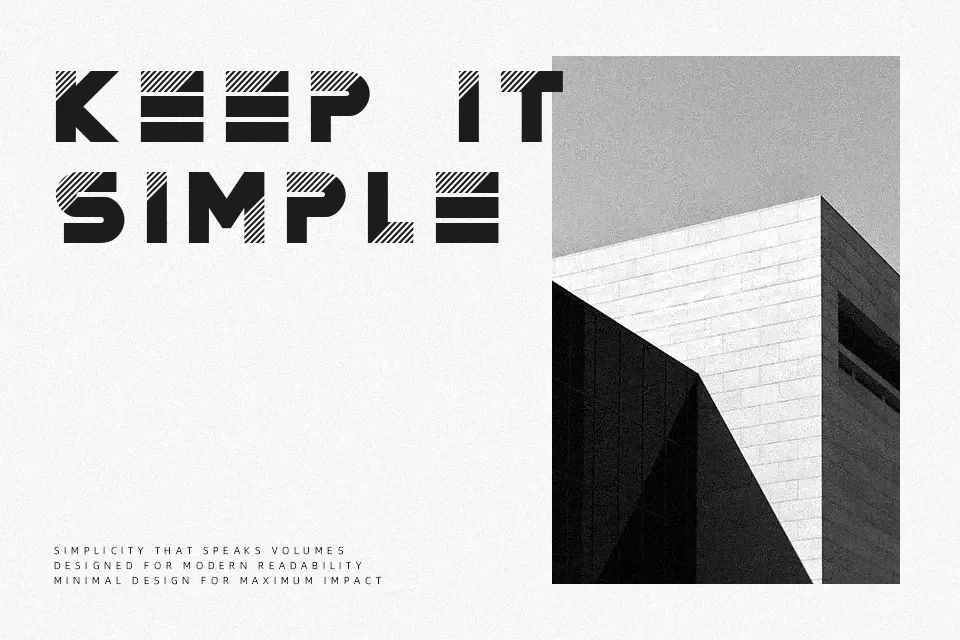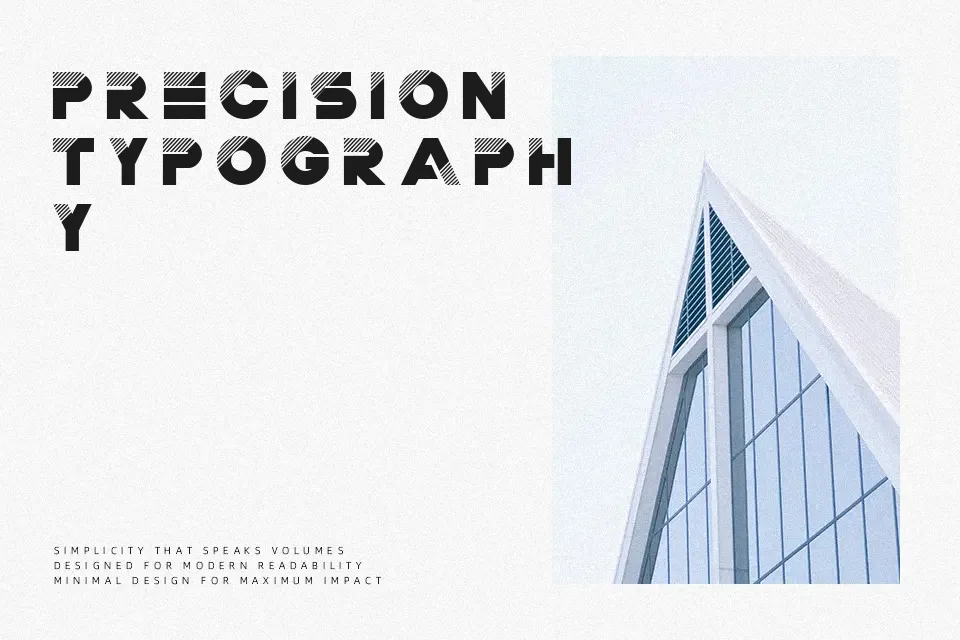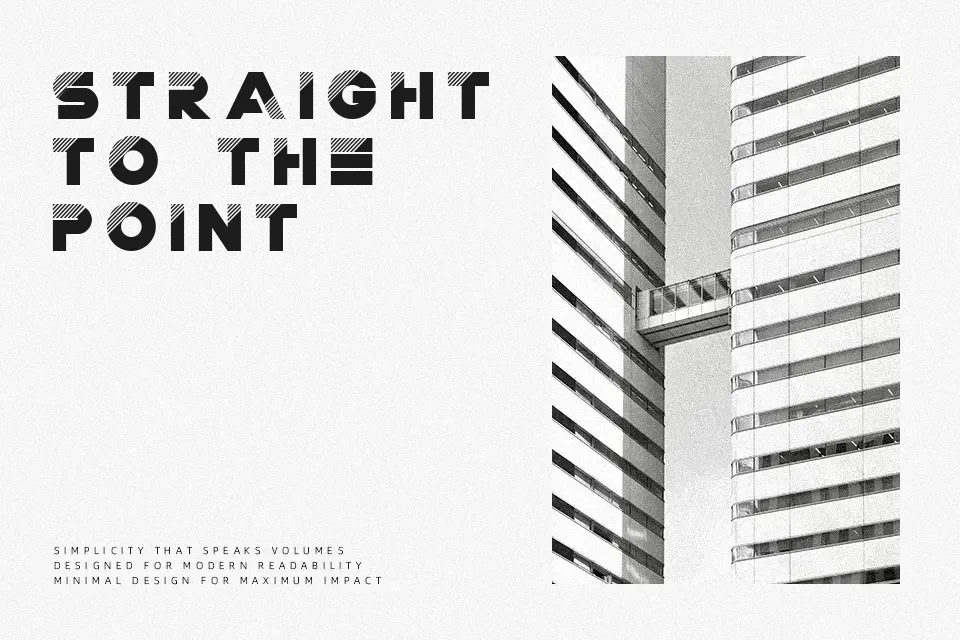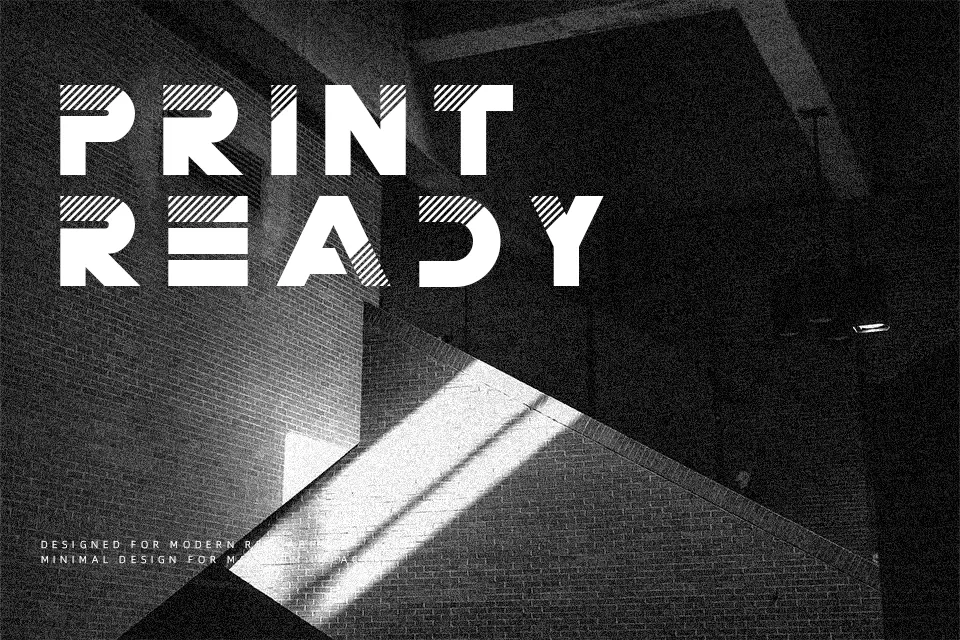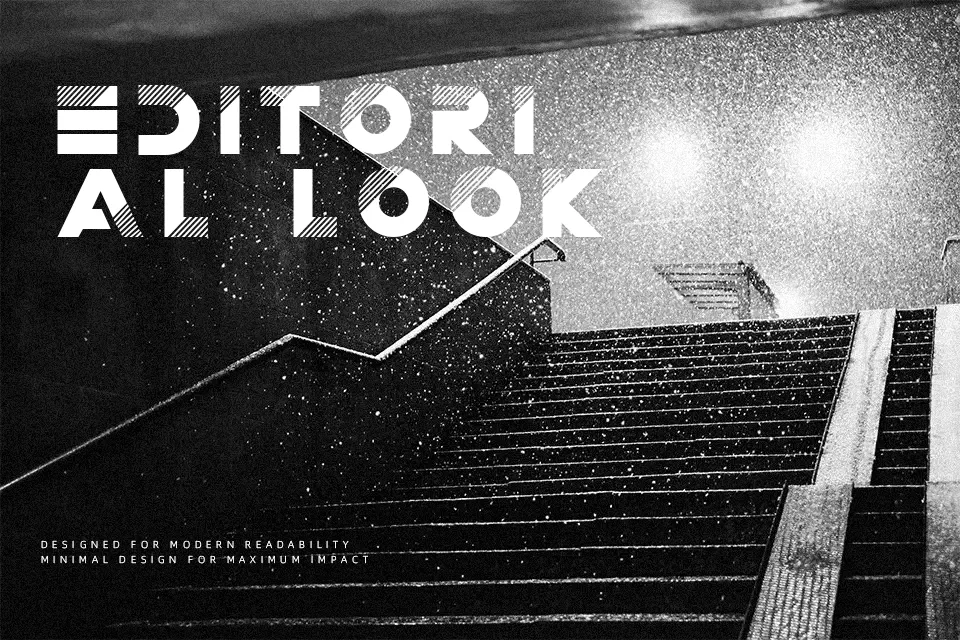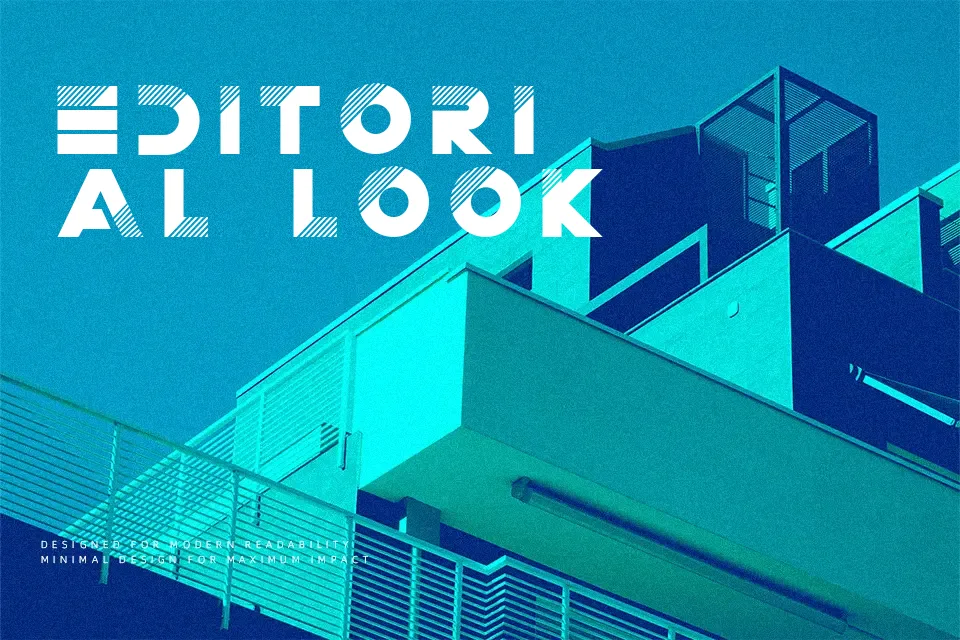
Trixie Font
Designed by Faqih Fawaji
Defined by uniform stroke weights and clean angular geometry, Trixie Font delivers an assertive aesthetic built around precise architectural letterforms. The typeface maintains disciplined character spacing and wide horizontal proportions, ensuring individual glyphs remain immediately legible when viewed at large display scales. In practical application, the design excels across techno music flyers, streaming overlays, and apparel graphics that demand assertive graphic presence. However, the heavy visual density and rigid modular shapes significantly compromise reading comfort in dense editorial paragraphs or compact mobile interfaces. The wide structure provides exceptional clarity for brief headlines, but setting extended text causes visual fatigue.
Best For: sci-fi film title sequences, esports tournament branding, electronic music festival posters
Not Ideal For: multi-page book interior text, dense financial spreadsheet tables, small mobile interface captions
Perfect for gaming, headline, and logo, with a creative and display style.